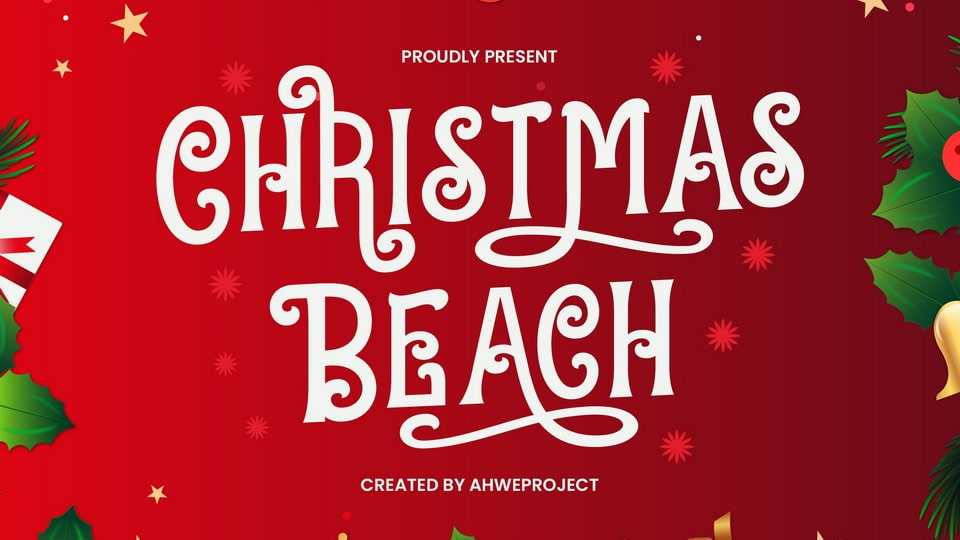
Download Christmas Beach font, a festive and incredibly classy display typeface. It is ideal for any of your winter break creations so add it to your designs and bring them to life!